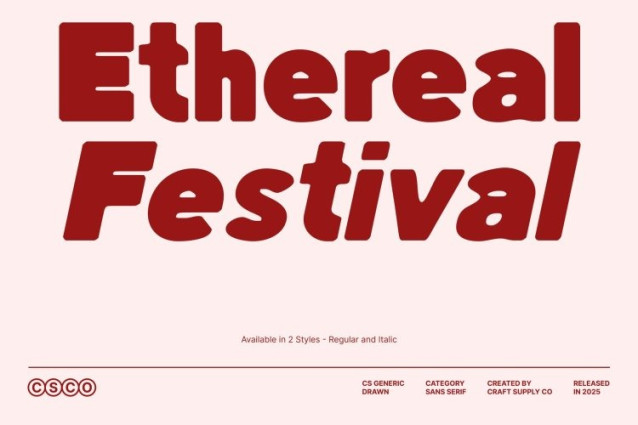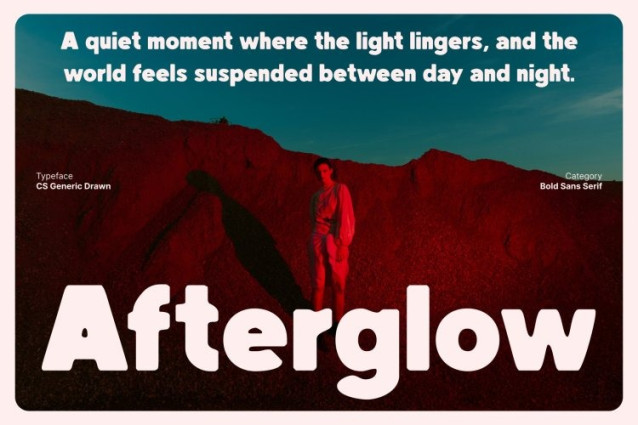
CS Generic Drawn Font
CS Generic Drawn Font This is a bold sans serif display font designed to command attention with its powerful modern structure. Featuring striking geometric forms and expressive shapes, it brings clarity and confidence to any layout. The drawn effect introduces a subtle handcrafted texture, giving each letter a unique surface and adding visual depth without sacrificing its clean, contemporary feel.
Designed for High-Impact Headlines
Make your messages impossible to ignore. This font’s bold weight and strong proportions make it a natural fit for headlines, banners, and striking promotional materials. The solid construction ensures excellent legibility at large scales, while the drawn texture softens the rigidity, creating a more dynamic and engaging appearance.
Perfect for Distinctive Branding
This font delivers a professional, contemporary identity that works beautifully across branding applications. Its lively and expressive shapes help logos, packaging, and brand visuals stand out with authority. The textured drawn effect adds character and originality, allowing brands to appear confident, modern, and visually memorable.
Versatile for Modern Design Needs
From print layouts to digital compositions, this font adapts effortlessly to a wide range of creative purposes. Its balance of bold impact, readability, and unique textured character makes it suitable for editorial work, social media graphics, signage, marketing materials, and more ensuring strong visual appeal across every context.